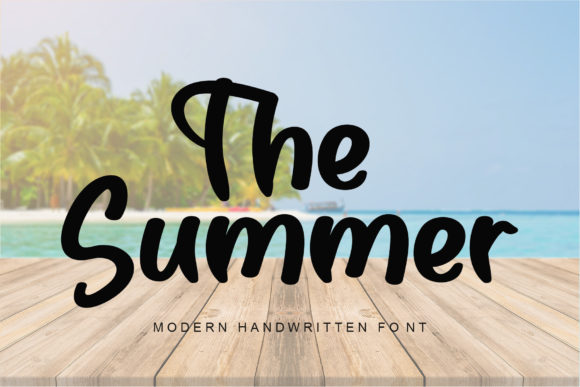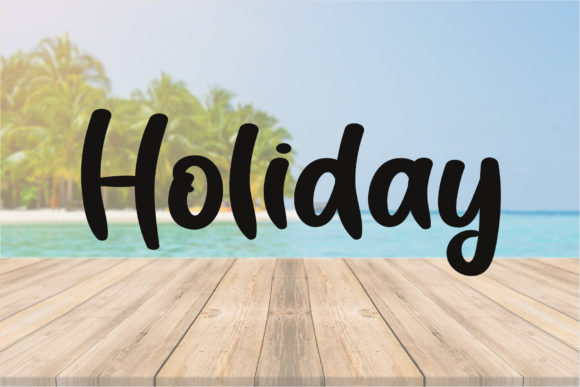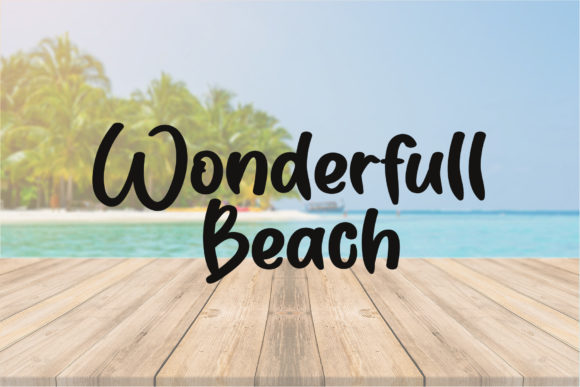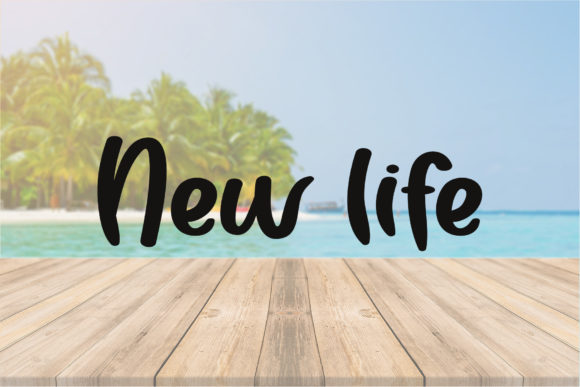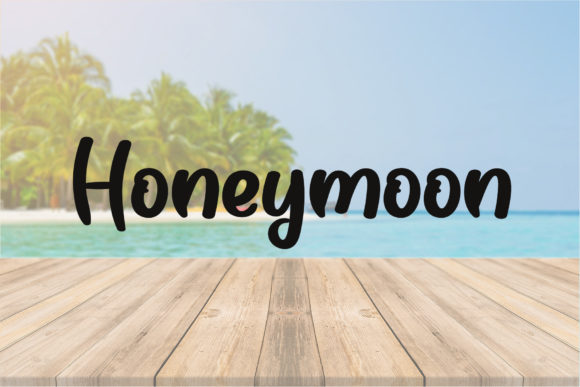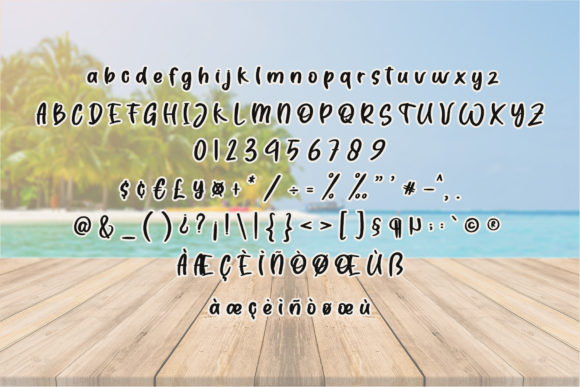
About The Summer Font
The Summer, a delicate, elegant, and flowing handwritten font, emerges as a captivating choice for infusing your creative ideas with sophistication and charm. With its beautiful and well-balanced characters, this font proves to be a versatile addition to your design toolkit, seamlessly complementing a diverse range of projects. Incorporate The Summer into your most creative ideas, and experience how it brings them to life with grace and style.
The delicacy of The Summer’s design sets a refined and enchanting tone. Each character is thoughtfully crafted, contributing to the overall beauty of the font and making it suitable for a wide array of applications.
Imagine The Summer gracing elegant invitations, where its flowing handwritten style adds a touch of romance and sophistication. The font becomes a key element in creating a captivating atmosphere, setting the perfect tone for special occasions.
In branding projects, The Summer stands out as a distinctive and elegant choice. Its delicate and well-balanced characters contribute to a harmonious visual identity, making your brand not only memorable but also conveying a sense of timeless beauty.
Social media graphics benefit from The Summer’s flowing elegance. Whether you’re sharing quotes, promotions, or engaging content, this font adds a level of sophistication that captures attention and resonates with a refined aesthetic.
The versatility of The Summer extends to various design contexts, allowing it to adapt seamlessly to your creative vision. From wedding stationery to logos and beyond, this font becomes a versatile tool for expressing your unique style with an air of grace.
As you incorporate The Summer into your creative projects, let its delicate and flowing handwritten charm inspire your imagination. Observe how it transforms your ideas into visually captivating expressions, making every project a celebration of beauty and thoughtful design.